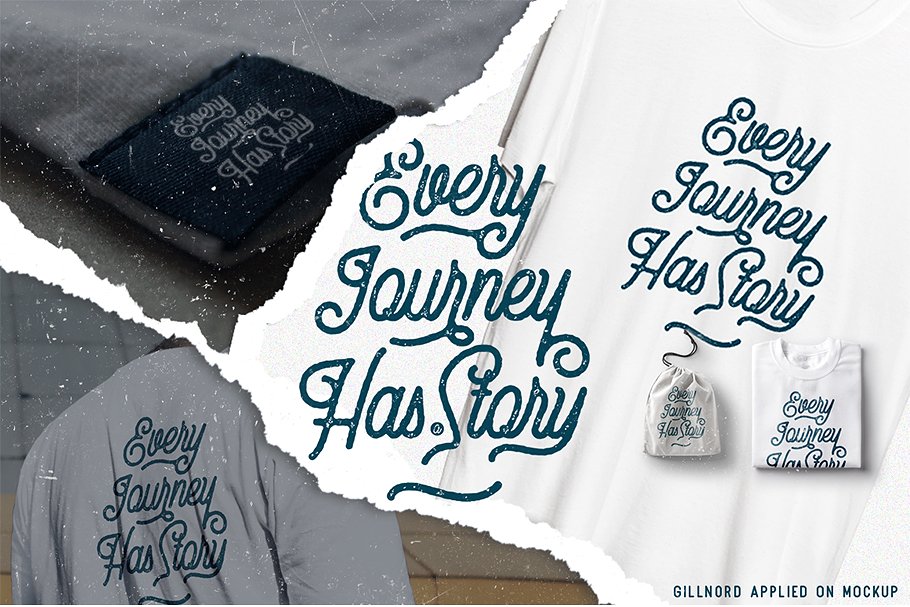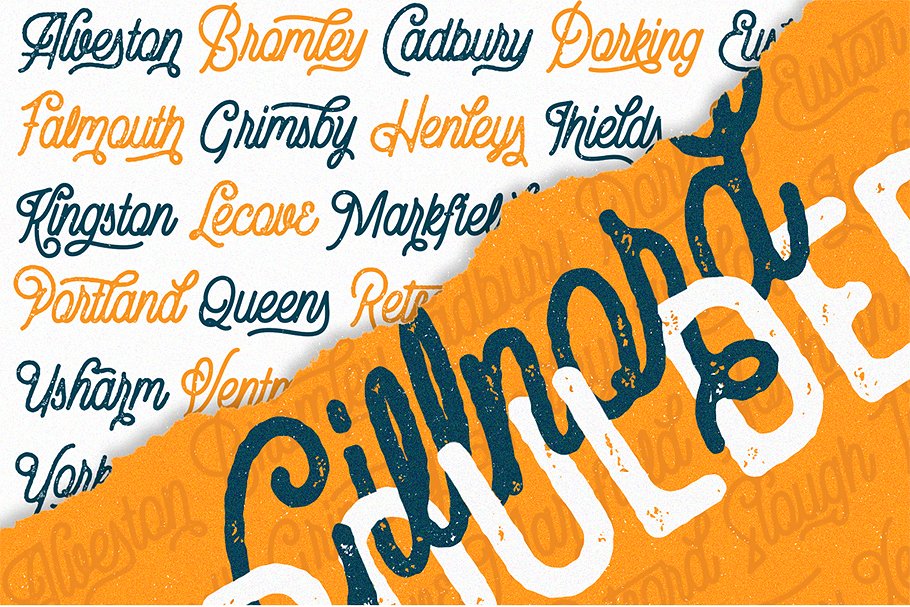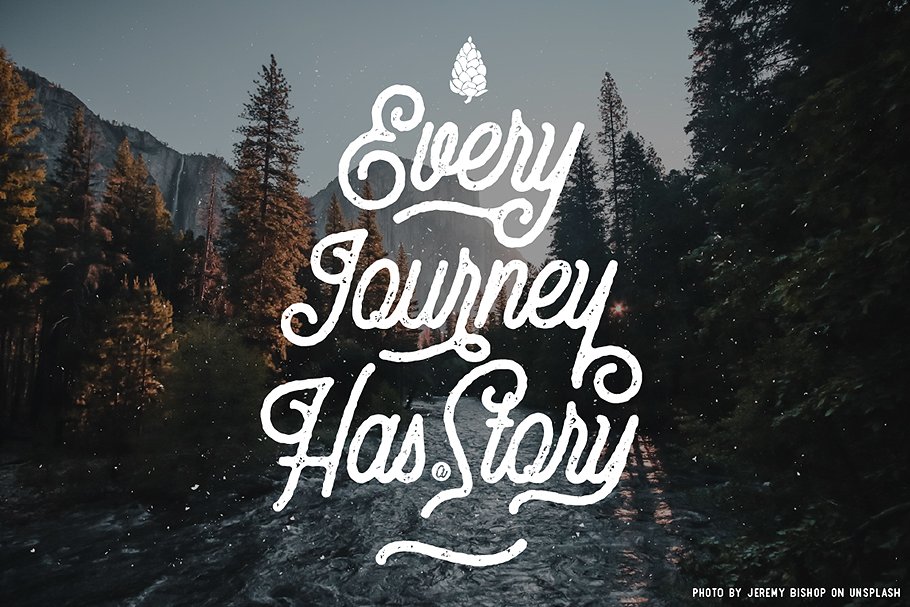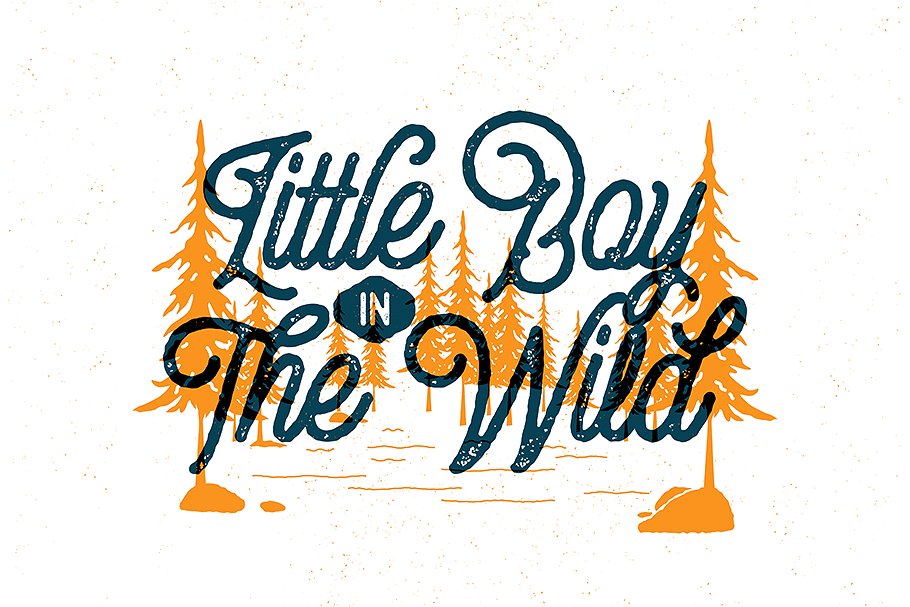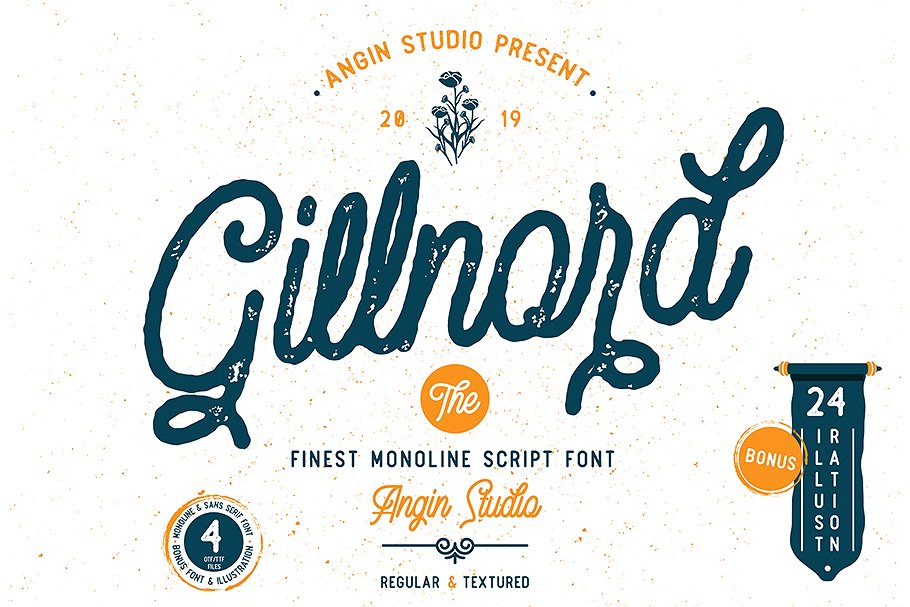
Gillnord Script Font
Dear Font Lovers! This is a very special script type, rustic and charming, and is inspired by vintage farmers markets and mid-century modern farmhouse signage. Introducing Gillnord Font. Gilnord is a vintage monoline script based on our hand lettering. this font created very carefully with perfect precision for every single curves. Gillnord have a unique shape that make it different and eye catching, also it will make your design have more aesthetic look. Gillnord can be used as a logo design, branding, packaging, poster and other design with a vintage touch.